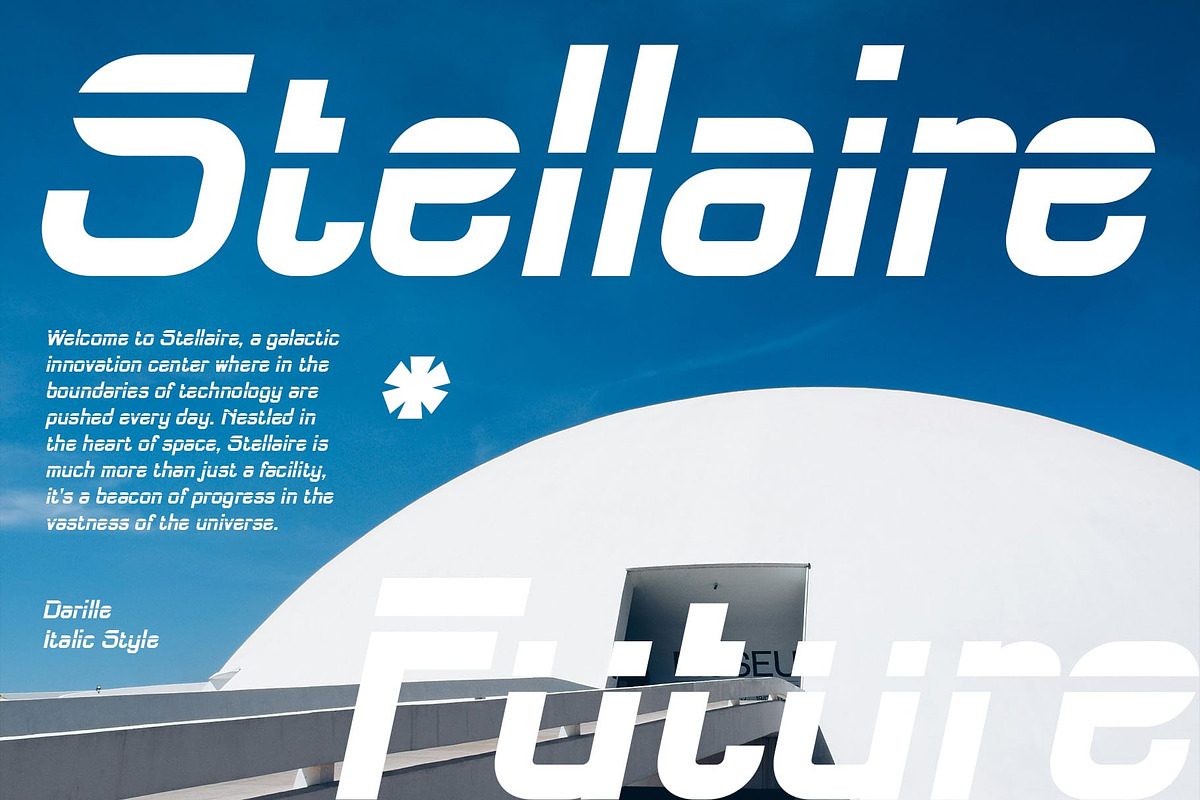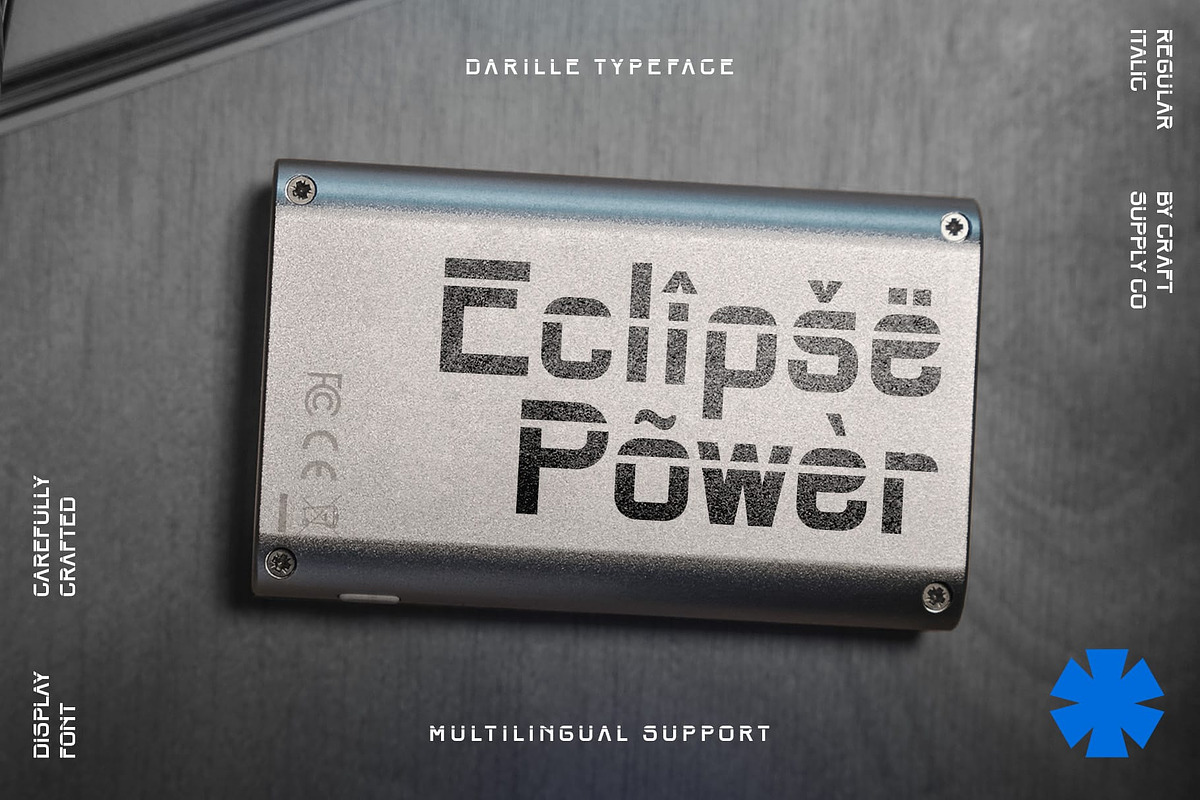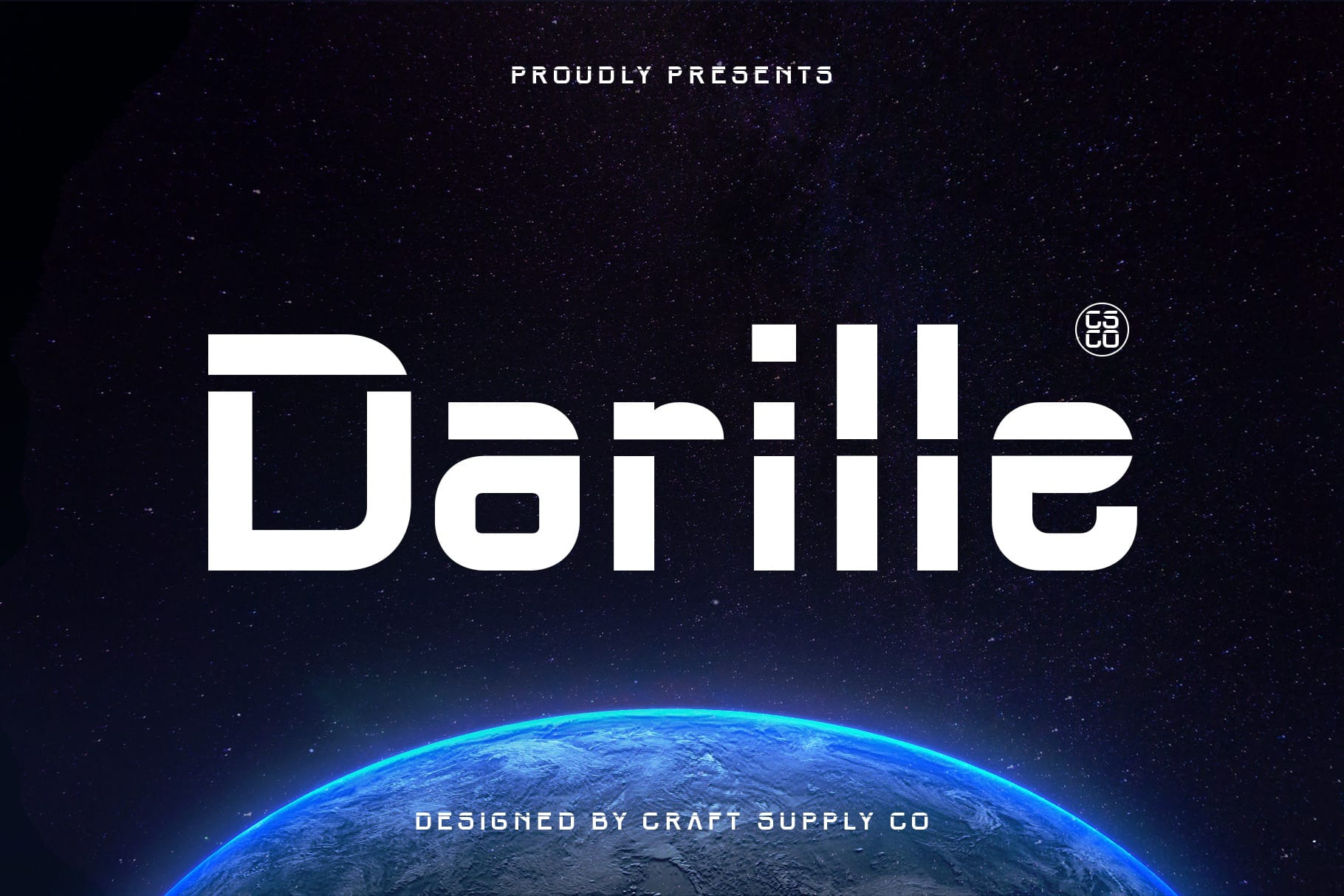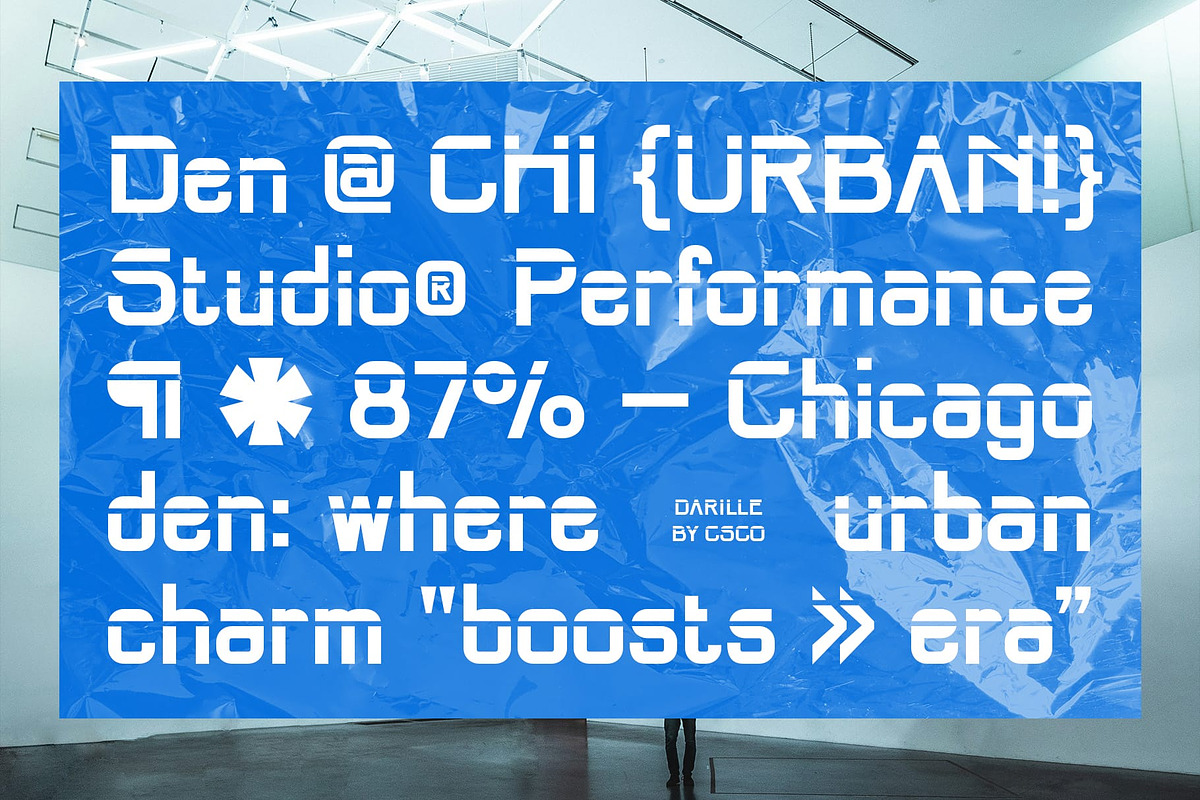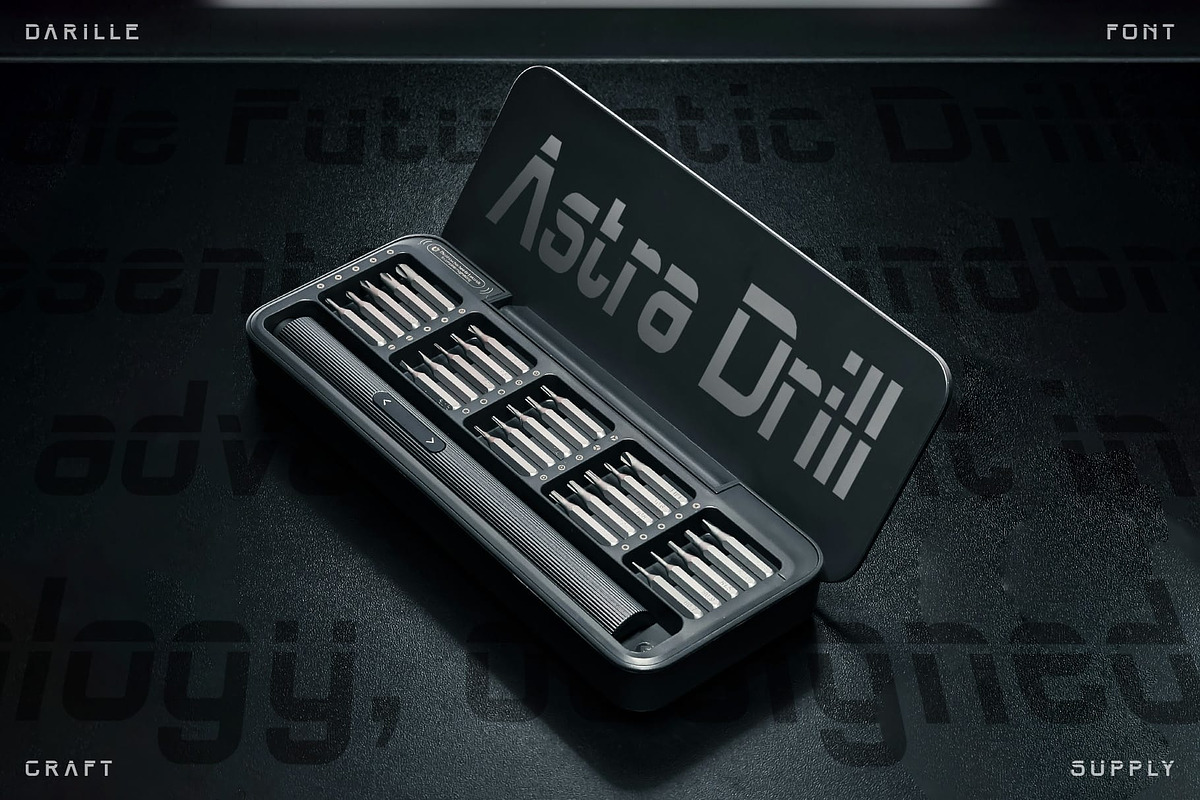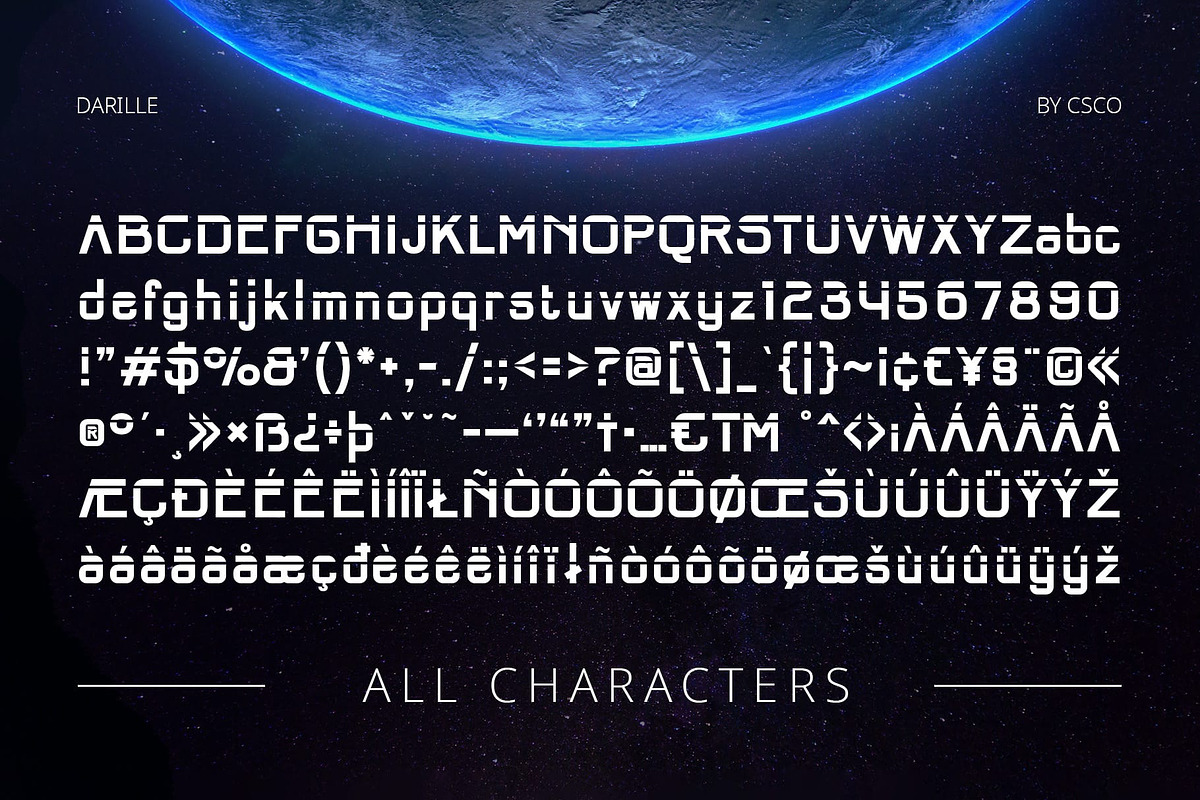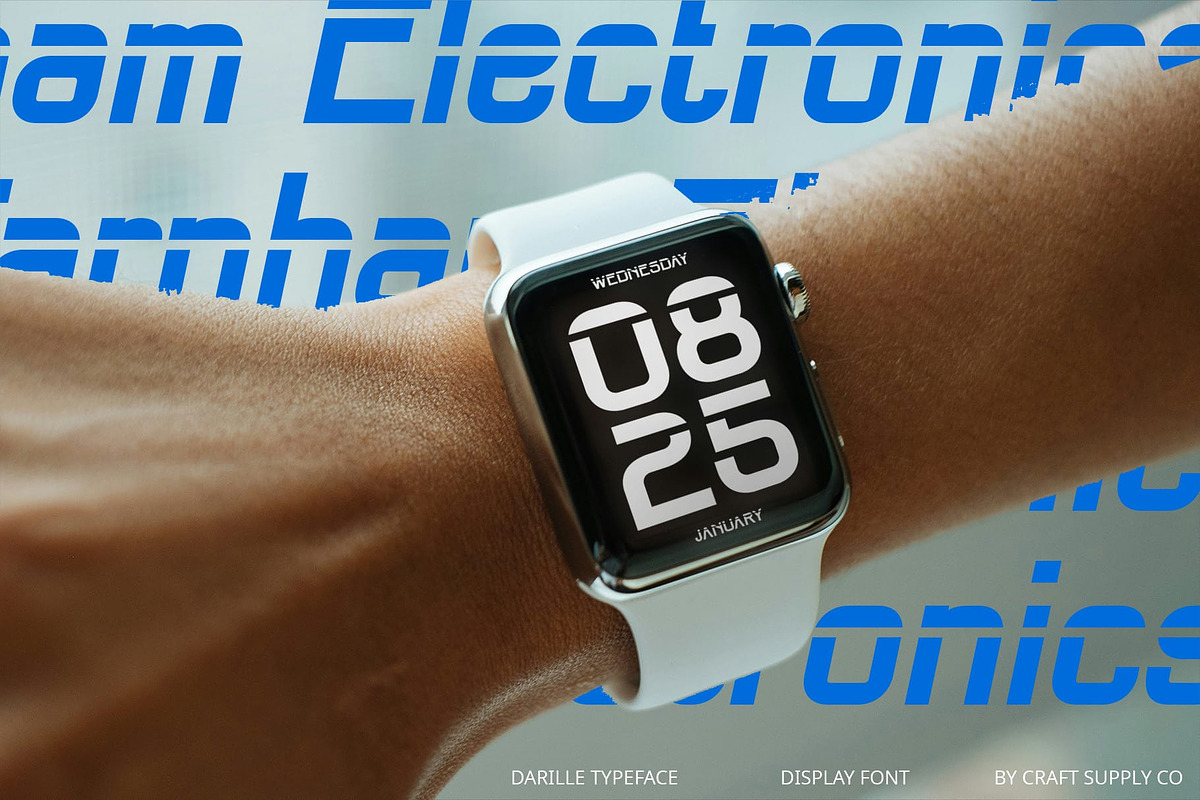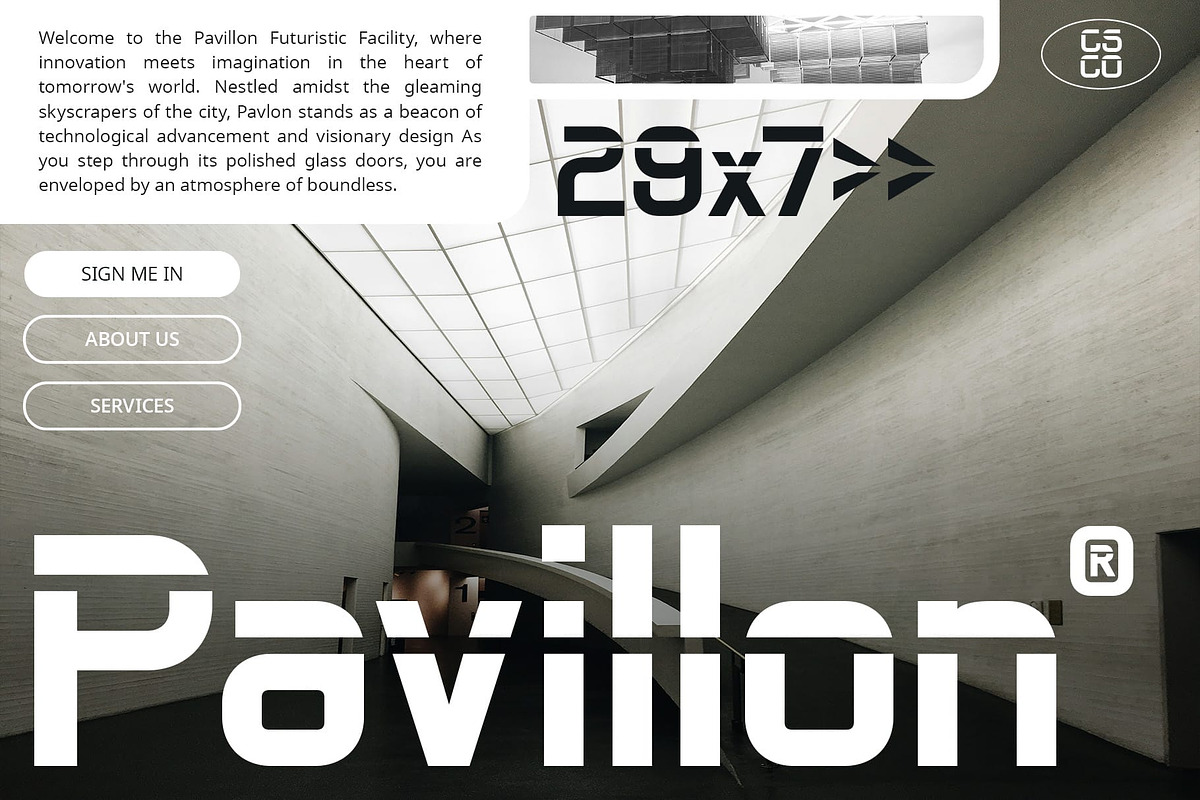
Darille – Futuristic Font
Darille: Embrace the Future
Futuristic Modern Sans
Darille is a sans serif font with a modern and futuristic feel, perfect for futuristic-style designs. Its sleek and innovative design elements create a captivating and forward-thinking look, ideal for technology-themed projects, branding, and other designs that require a touch of modernity and futuristic appeal.
Modern Style with a Futuristic Feel
With its clean lines and contemporary design, Darille offers a fresh take on sans serif fonts. The modern style and futuristic feel create a dynamic and engaging look, perfect for designs that demand attention and convey a sense of innovation and sophistication.
Perfect for Futuristic Designs
Whether you’re designing a high-tech website or creating a futuristic logo, Darille is sure to make an impression. Its modern and futuristic feel makes it perfect for designs that need a touch of cutting-edge style and forward-thinking elegance.
Versatile and Easy to Use
Despite its distinctive appearance, Darille is versatile and easy to use. The font works well in both large and small sizes, making it suitable for a variety of applications, from headlines and banners to body text and more. With its blend of modern style and futuristic feel, Darille adds a unique and innovative element to any design.
- Darille Regular
- Darille Italic